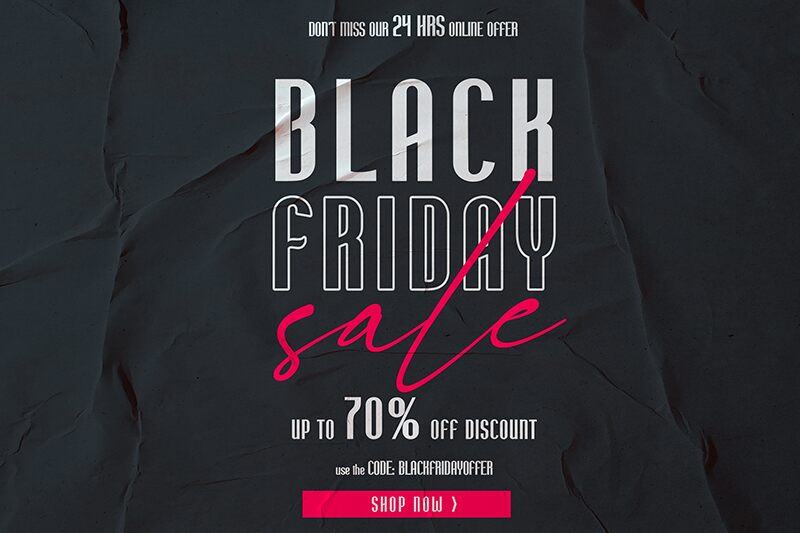
Boom Amorita
Boom Amorita font from Bearytype will immediately win over your audience thanks to its excellence. The free condensed sans serif font exhibits a minimalist approach in its design, with clean lines and lowered contrasts; its contemporary identity is not to be missed. Boom Amorita has an all-caps alphabet with ligatures, punctuation symbols, numbers, and Latin diacritical marks. It also supports multiple languages.
Consider using the font in packaging design, especially for high-end products. Also worth trying within branding designs like business card development or on online advertising platforms. This typeface would work in editorials including magazines and printed books (headings). Use it on greeting cards and more!